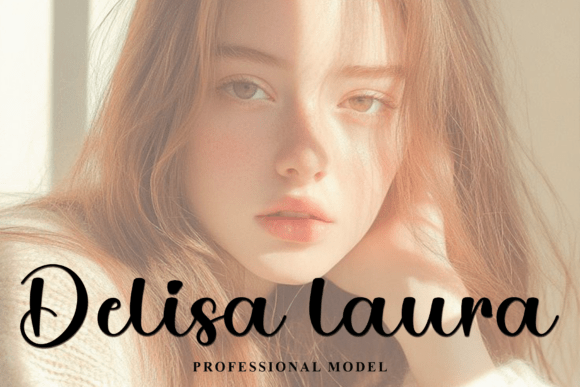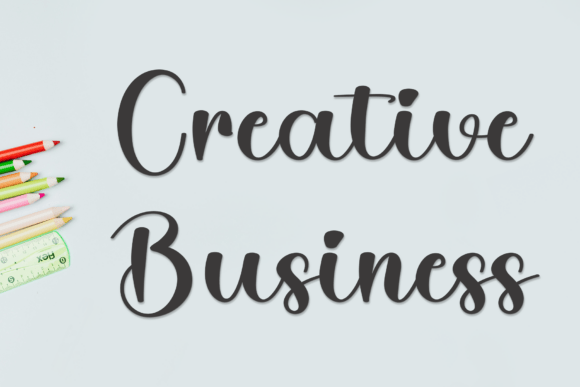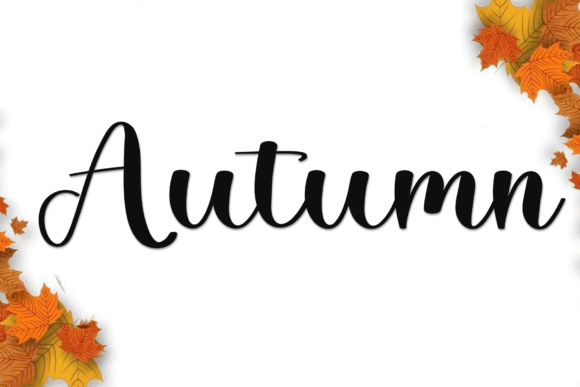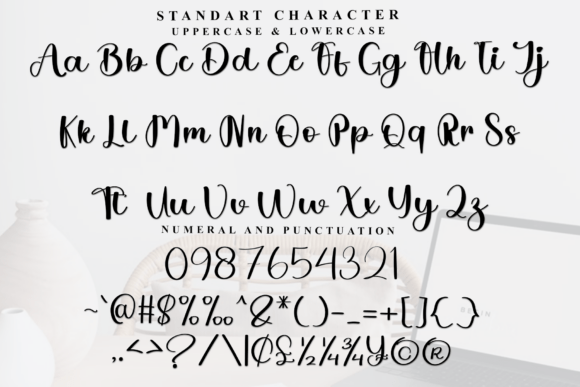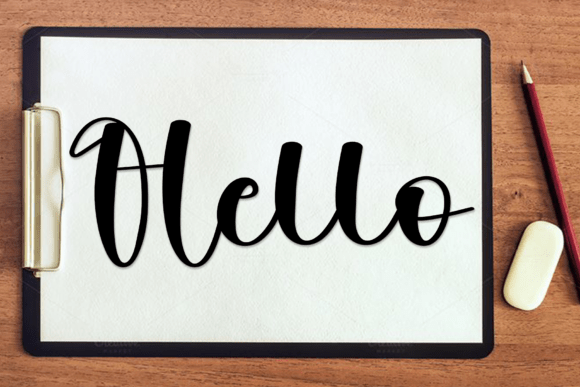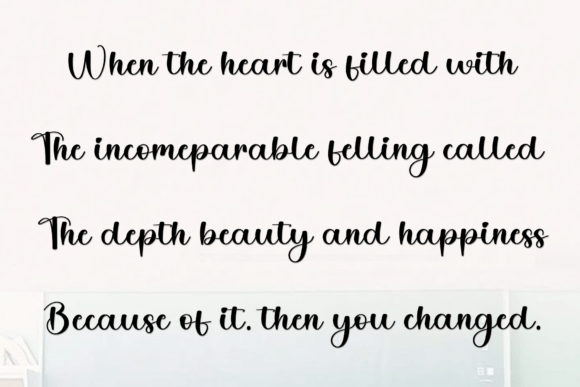
Biscuit Delicious Font: A Festive Typeface for the Holiday Season
As the holiday season approaches, designers and crafters are on the lookout for typography that captures the spirit of the season. If you’re looking for a font that adds a touch of magic to your designs, look no further than Biscuit Delicious Font. This festive and merry typeface is perfect for greeting cards, gift tags, and holiday-themed projects, bringing a cheerful and nostalgic ambiance to your words.
Biscuit Delicious Font is a decorative typeface that embodies the whimsy and enchantment of the holiday season. Its unique design elements and ligatures add a playful touch to your typography, making it perfect for a variety of holiday-themed projects. Whether you’re designing greeting cards, gift tags, or festive posters, this font is sure to bring a smile to your audience’s faces.
With Biscuit Delicious Font, you can add a touch of holiday cheer to your designs. The font’s festive and merry design makes it perfect for:
- Greeting cards: Create personalized holiday greeting cards that will make your loved ones feel special.
- Gift tags: Add a touch of whimsy to your gift tags and make them stand out.
- Holiday-themed posters: Create eye-catching posters that capture the spirit of the holiday season.
- Craft projects: Use the font to add a personal touch to your craft projects, such as scrapbooking, journaling, and more.
One of the best things about Biscuit Delicious Font is that it’s PUA (Private Use Area) encoded. This means that you can access all of the amazing glyphs and ligatures with ease, making it simple to add a touch of magic to your designs. With PUA encoding, you can:
- Easily access alternative characters and ligatures.
- Create unique and eye-catching designs that stand out from the crowd.
Why Choose Biscuit Delicious Font?
With so many fonts to choose from, why should you choose Biscuit Delicious Font? Here are just a few reasons:
- Unique design: The font’s festive and merry design makes it perfect for holiday-themed projects.
- Easy to use: The font is PUA encoded, making it simple to access all of the amazing glyphs and ligatures.
- Versatile: The font can be used for a variety of projects, from greeting cards to holiday-themed posters.
- Nostalgic ambiance: The font brings a cheerful and nostalgic ambiance to your words, making it perfect for holiday-themed projects.
Tips for Using Biscuit Delicious Font
Here are a few tips for using Biscuit Delicious Font in your designs:
- Experiment with different colors: The font looks great in a variety of colors, from traditional holiday colors like red and green to more modern colors like pink and turquoise.
- Use it with other fonts: Pair Biscuit Delicious Font with other fonts to create a unique and eye-catching design.
- Don’t be afraid to get creative: The font’s whimsical design makes it perfect for creative and experimental projects.